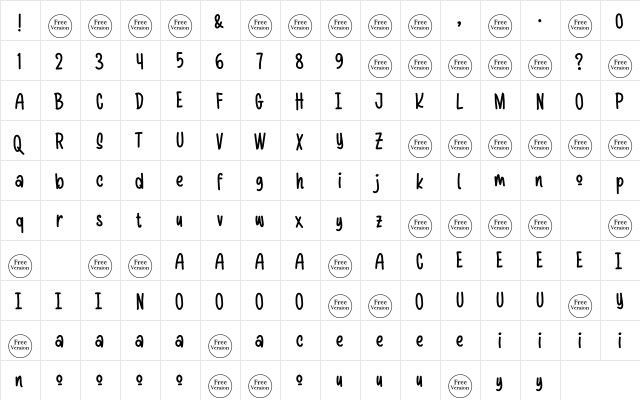
Kulo Free Version Regular Font Preview
Kulo Free Version Regular
Kulo Free Version Regular Font Details
Design Context for Kulo Free Version Typeface
Kulo Free Version is a composed and adaptable typeface that performs quietly and consistently across a wide range of design contexts.
Pro Tip: Use Kulo Free Version in both headline and body roles to test its range before committing to a single application.